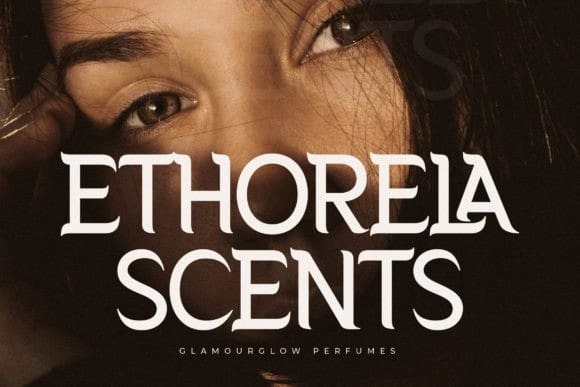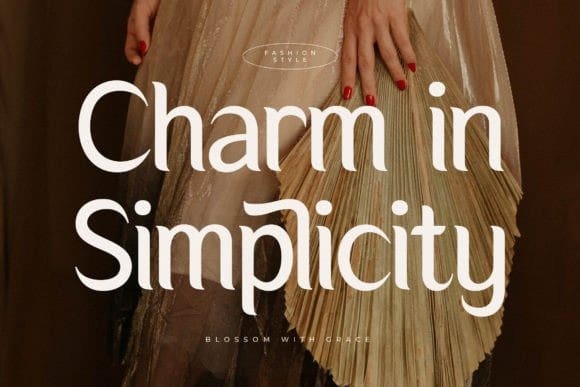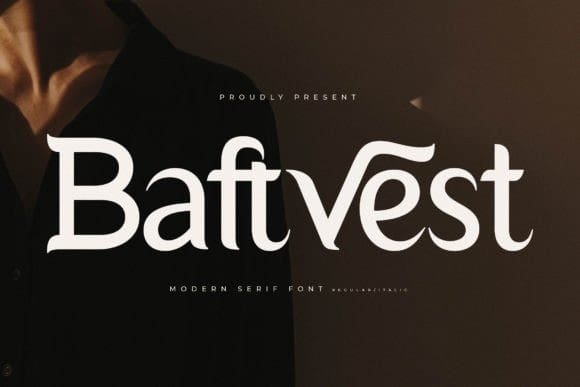
Baftvest Font
Baftvest Font by Storytype Studio 20,368 downloads
Baftvest Font
Baftvest Font – Modern Serif Font , created by Storytype, a serif modern and classic typeface that has own unique style & modern look.